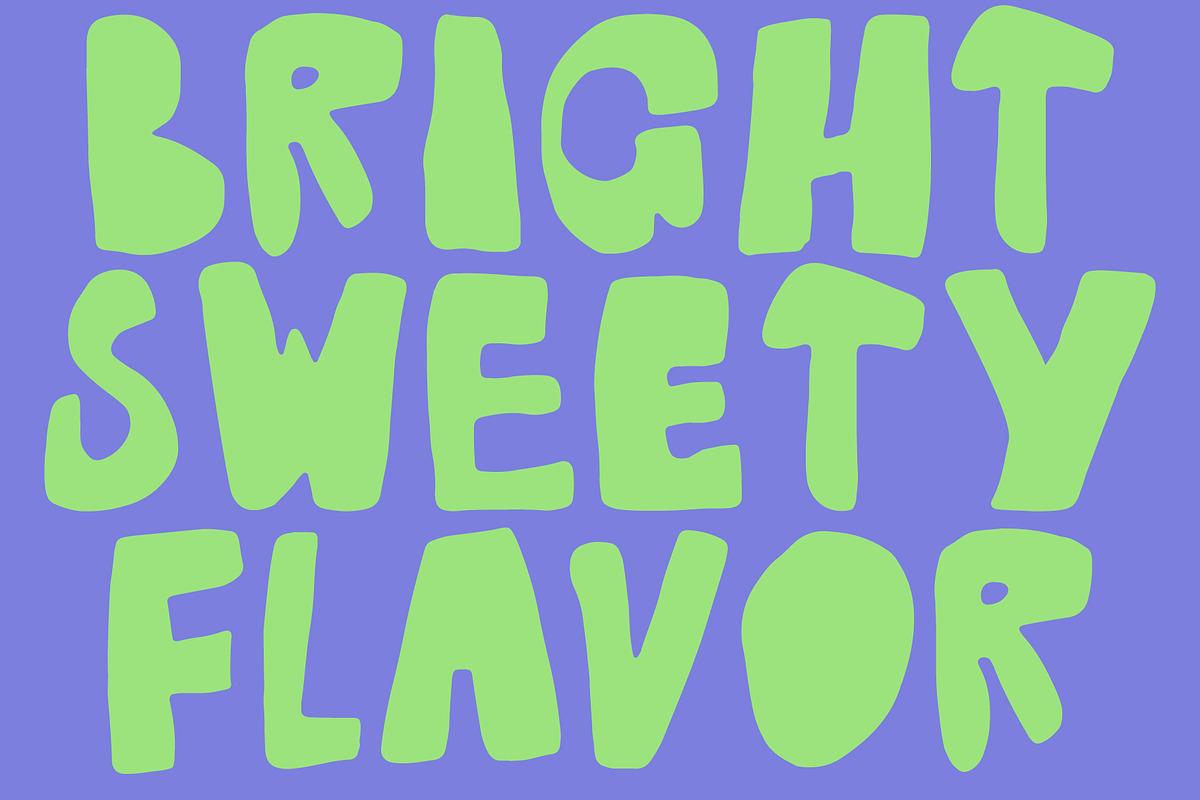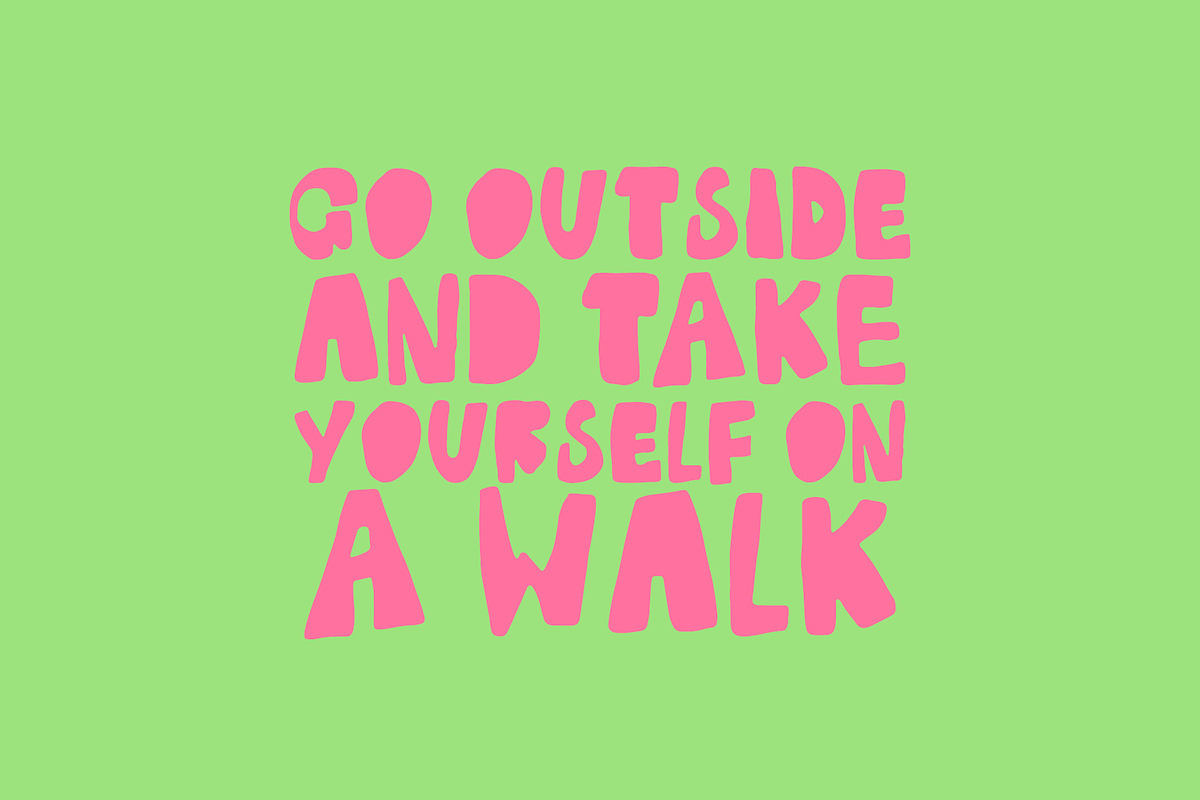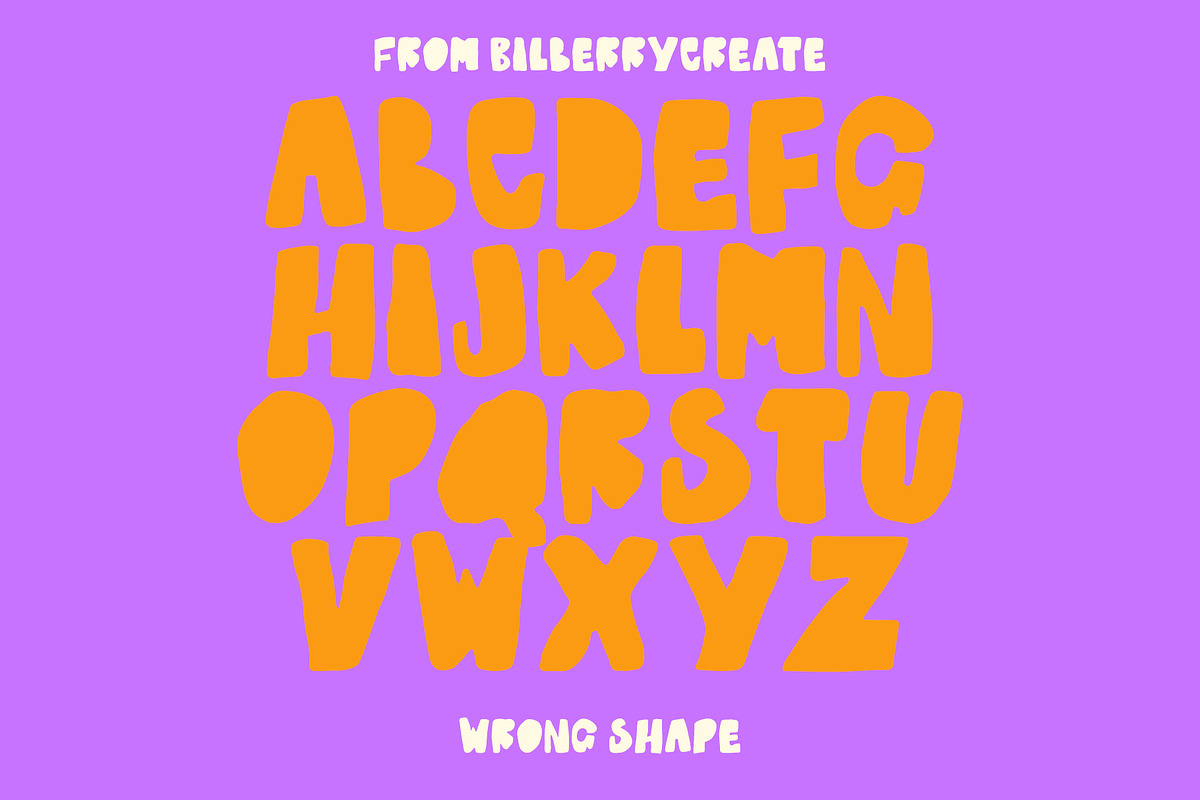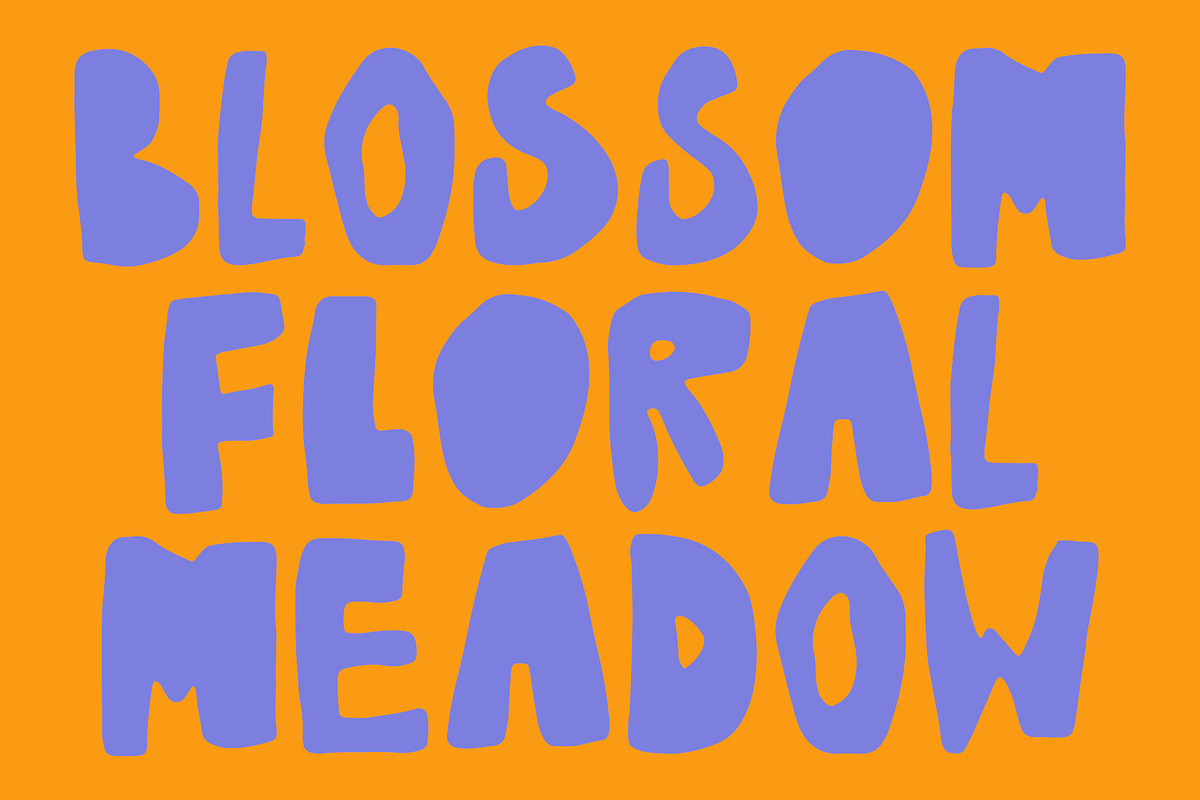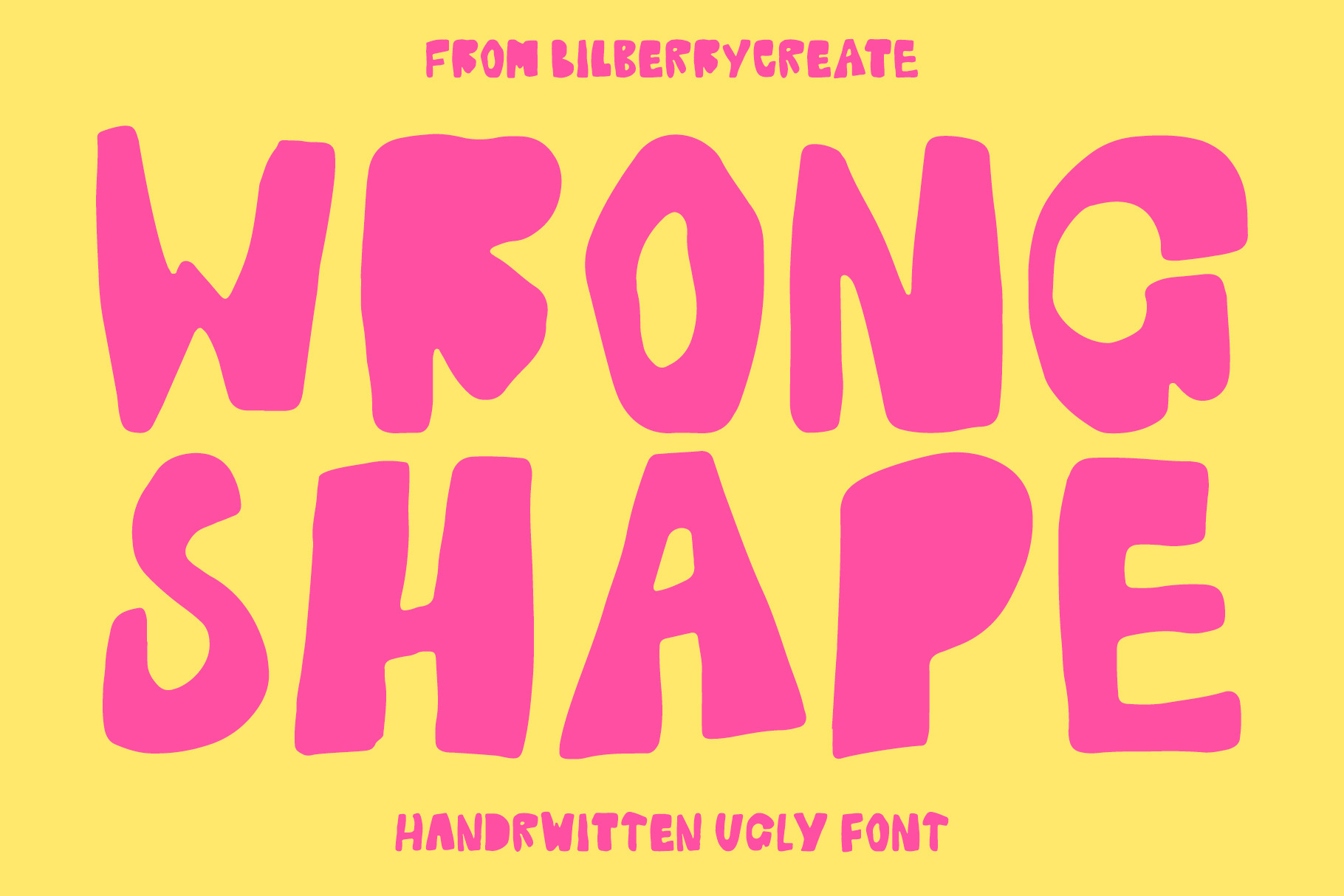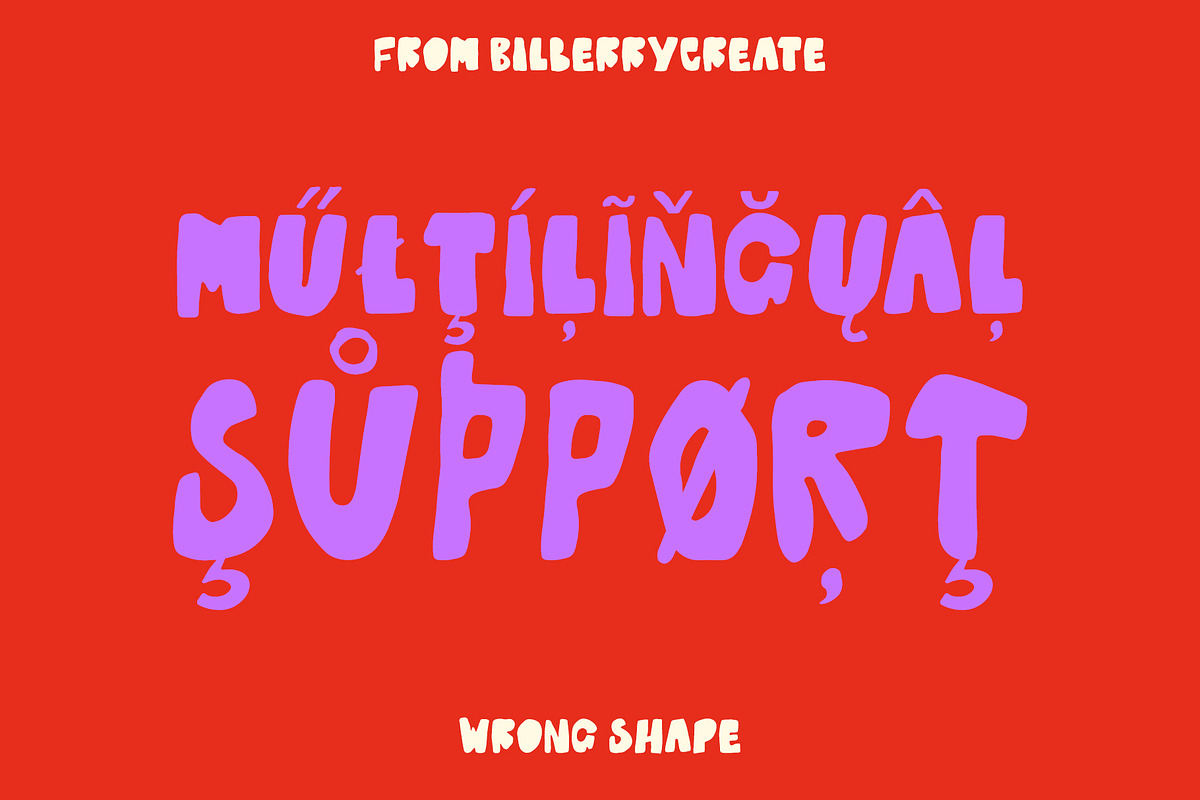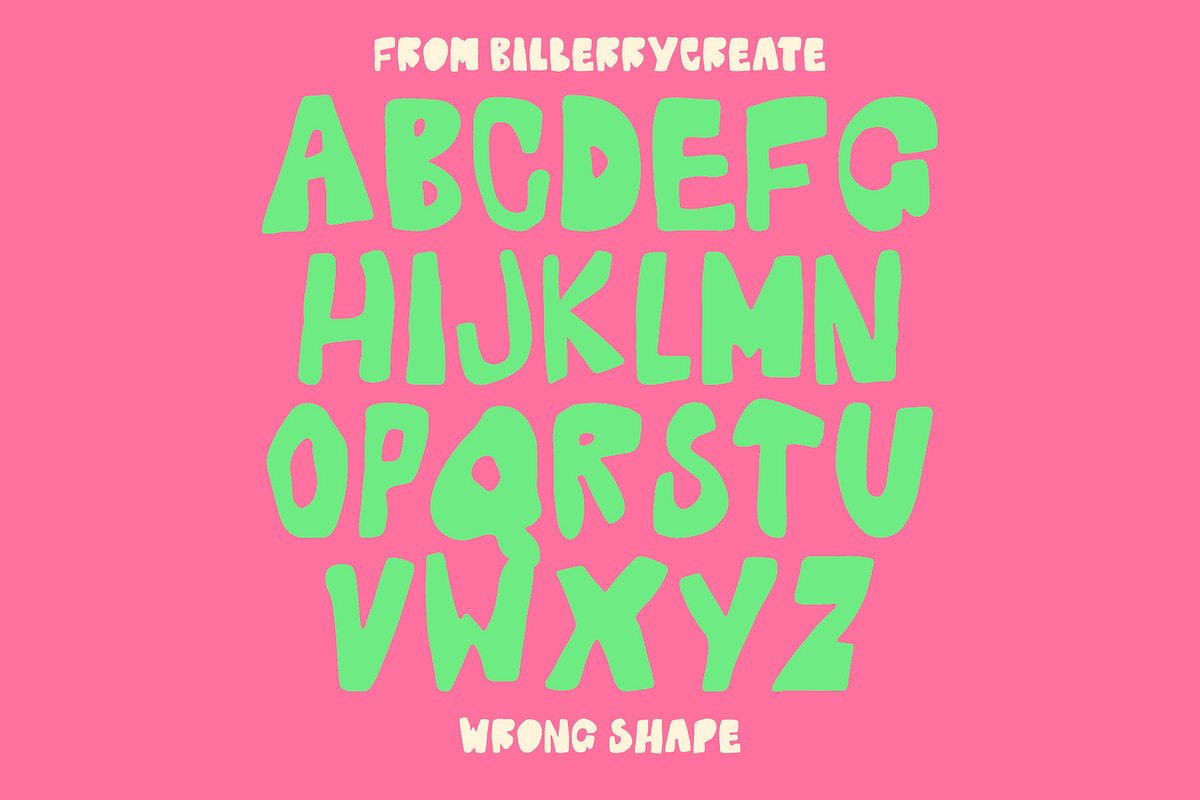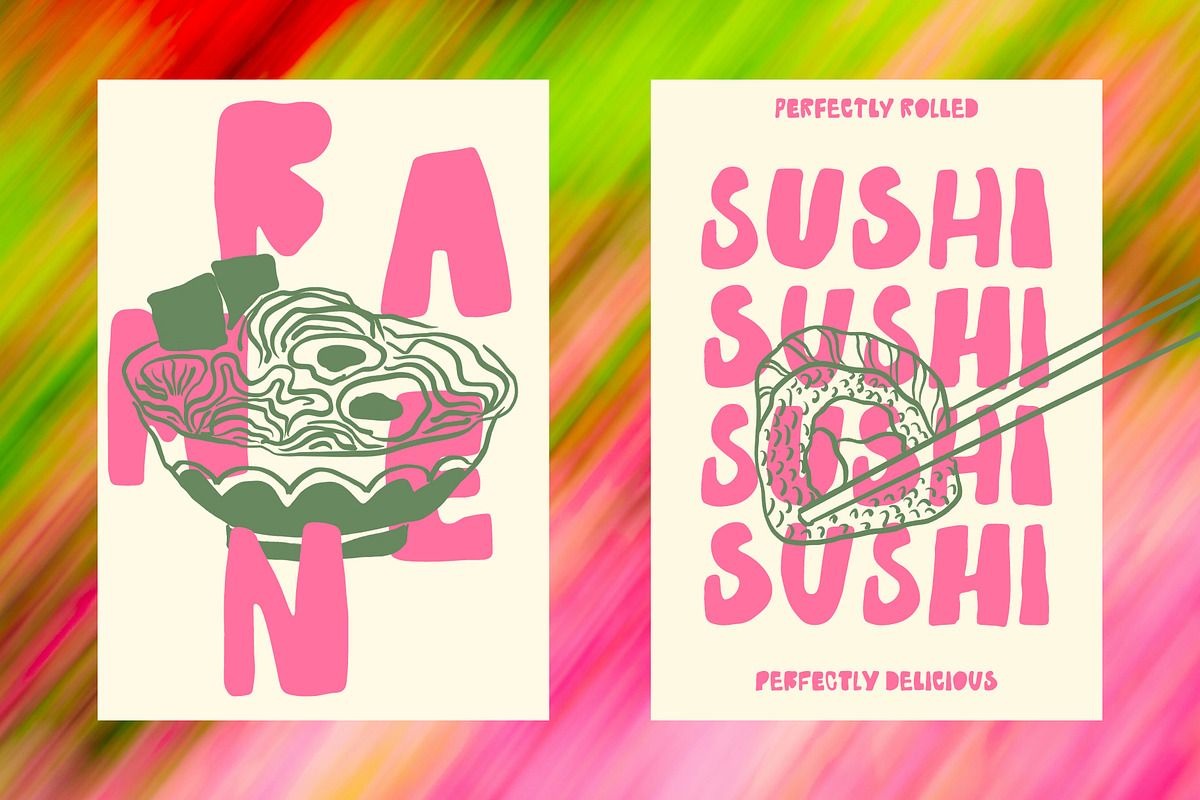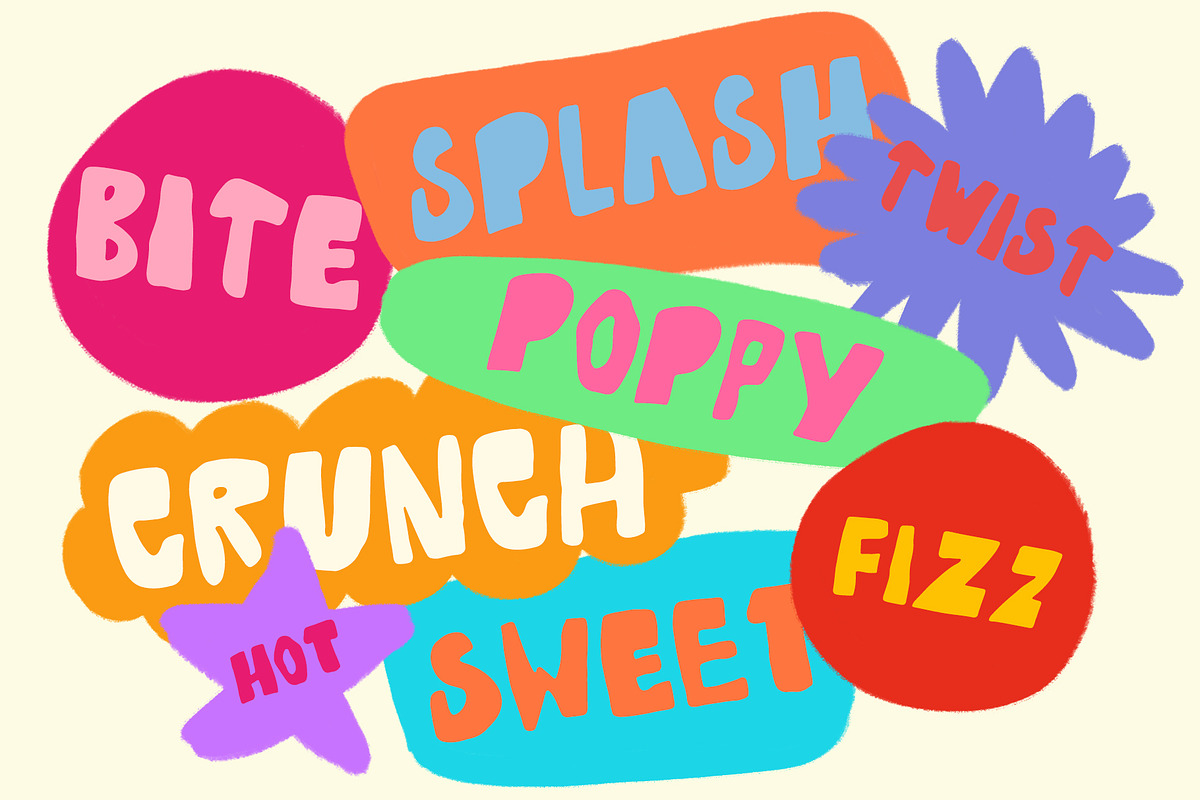
WRONG SHAPE UGLY FONT
Wrong Shape is a fun and expressive handwritten font featuring chunky, irregular letterforms and deliberately imperfect details. It celebrates imperfection - shaky strokes, quirky curves, and that unapologetically “ugly” character that adds bold personality and raw energy to your designs.
This font works great for posters, branding, packaging, social media graphics, children’s projects, stickers, and any design that needs a loud, expressive voice. It’s especially perfect when you want something raw, fun, and a little rebellious instead of clean and polished. Wrong Shape adds personality to your work and stands out effortlessly in big headlines.
Wrong Shape Font Features:
Full Set of standard alphabet and punctuation
Multilingual Characters AÁĂÂÄÀĀĄÅÃÆBCĆČÇĊDĎĐÐEÉĚÊËĖÈĒĘẼƏFGĞĢĠHĦIIJÍÎÏİÌĪĮĨ KĶLĹĽĻŁMNŃŇŅÑOÓÔÖÒŐŌØÕŒPÞQRŔŘŖSŚŠŞȘẞTŤŢȚUÚÛÜÙŰŪŲŮŨVWẂŴẄẀXYÝŶŸỲỸZŹŽŻꞋaáăâäàāąåãæbcćčçċdďđðeéěêëėèēęẽəfgğġhħiıíîï ìīįĩijjȷ kķlĺľļłmnńňņñoóôöòőōøõœpþqrŕřŗsśšşșßtťţțuúûüùűūųůũvwẃŵẅẁxyýŷÿỳỹzźžż